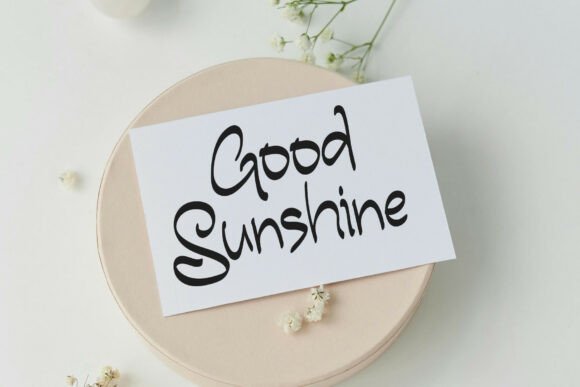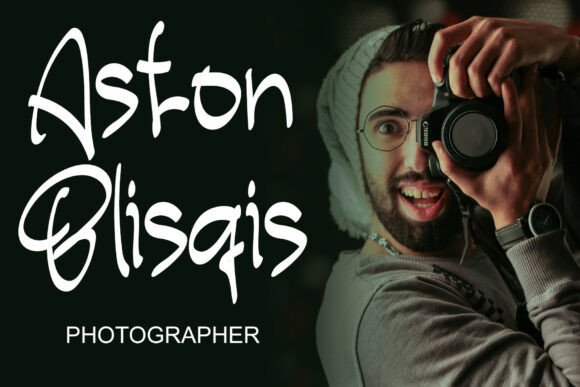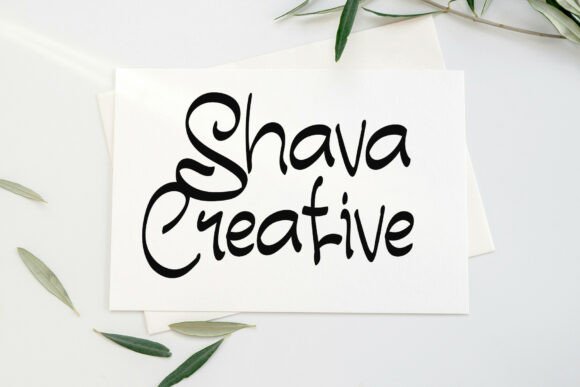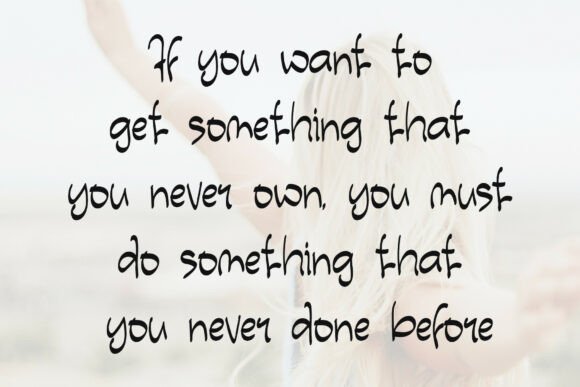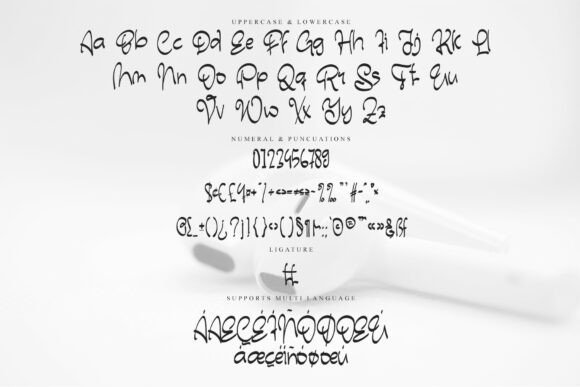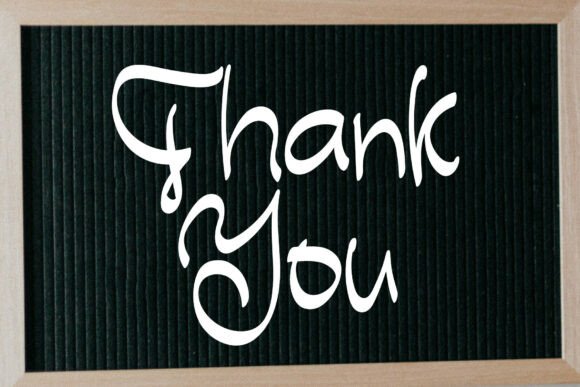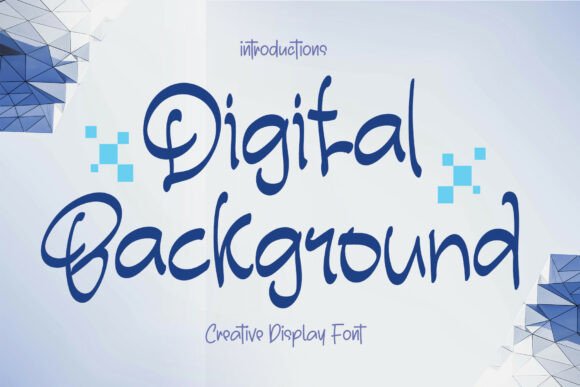
Unlock the Magic of Digital Background Font: Elevate Your Designs with Elegance and Strength
In the realm of digital design, fonts play a pivotal role in conveying messages, evoking emotions, and creating lasting impressions. Among the myriad of fonts available, the Digital Background Font stands out as a captivating handwritten font that seamlessly blends strength and elegance. This enchanting font is perfect for designers and crafters looking to infuse their projects with a bold, eye-catching appeal. In this article, we’ll delve into the unique features of the Digital Background Font and explore how it can elevate your designs to new heights.
The Essence of Digital Background Font
Digital Background Font is more than just a collection of letters; it’s an artistic expression that combines the charm of handwriting with the precision of digital design. Each letterform is meticulously crafted to exude a sense of wonder and sophistication, making it an ideal choice for a wide range of projects. Whether you’re working on a mystical, modern, or elegant design, this font is sure to enchant and inspire.
Unique Features of Digital Background Font
- Handwritten Elegance: Digital Background Font boasts a beautiful, handwritten aesthetic that adds a touch of warmth and personality to any design.
- Strength and Boldness: The font’s unique letterforms are designed to make a statement, perfect for bold and eye-catching designs that demand attention.
- Mysterious Charm: With a hint of mystery, this font is ideal for projects that require a sense of intrigue and allure.
- Versatility: Digital Background Font is suitable for a wide range of projects, from mystical and modern to elegant and sophisticated designs.
Applications of Digital Background Font
The versatility of Digital Background Font makes it an excellent choice for various design projects, including:
- Branding and Logo Design: Create a lasting impression with a bold and eye-catching logo that showcases your brand’s personality.
- Digital Marketing Materials: Elevate your social media posts, flyers, and brochures with a font that demands attention and evokes emotions.
- Packaging Design: Add a touch of elegance and sophistication to your product packaging with this captivating font.
- Web Design: Enhance your website’s visual appeal with a font that seamlessly blends strength and elegance.
Tips for Using Digital Background Font
To make the most of Digital Background Font, consider the following tips:
- Experiment with Colors: Pair the font with a range of colors to create a unique and captivating visual effect.
- Play with Typography: Combine Digital Background Font with other fonts to create a visually appealing contrast.
- Keep it Simple: Don’t overcomplicate your design; let the font’s elegance and strength take center stage.
Digital Background Font is a captivating handwritten font that offers a perfect blend of strength and elegance. With its unique letterforms, mysterious charm, and versatility, this font is sure to elevate your designs to new heights. Whether you’re a designer or crafter, this enchanting font is an excellent addition to your toolkit. Unlock the magic of Digital Background Font and enchant your audience with bold, eye-catching designs that leave a lasting impression.